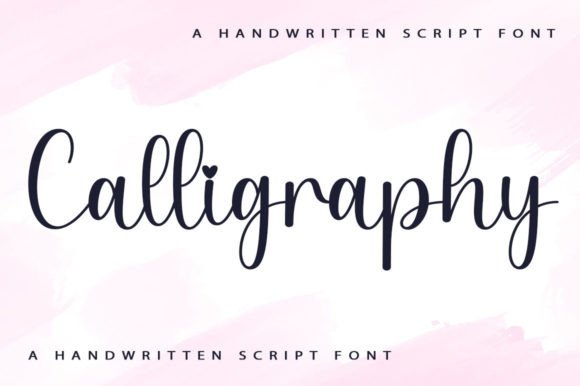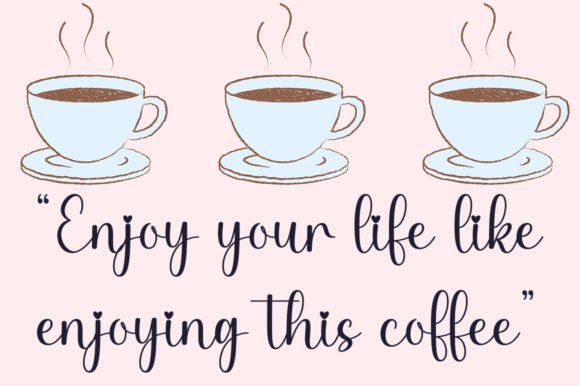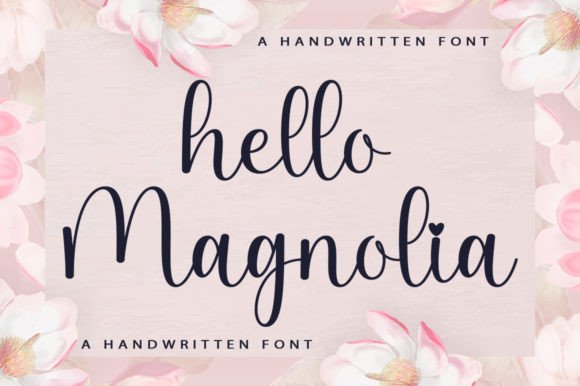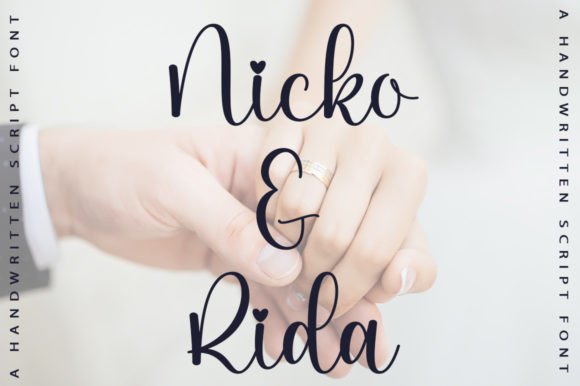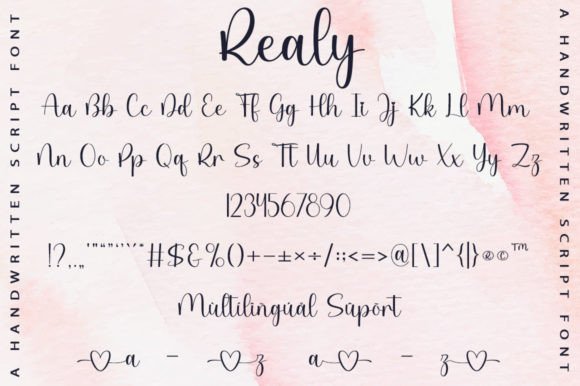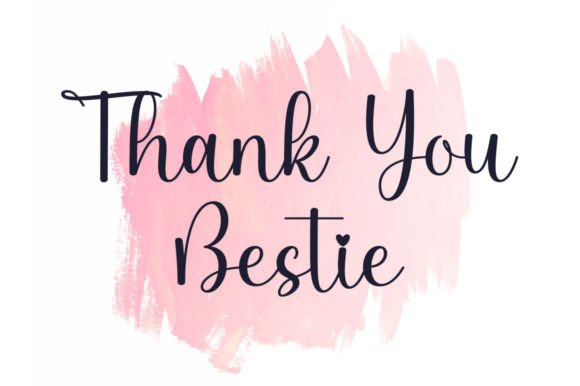
Introduction to Realy Font
Realy is a sweet and cursive handwritten font.
This gentle font will look gorgeous on a variety of design ideas It will add a joyful and romantic touch to each of your projects.
Key Features of Realy Font
Why Choose Realy Font?